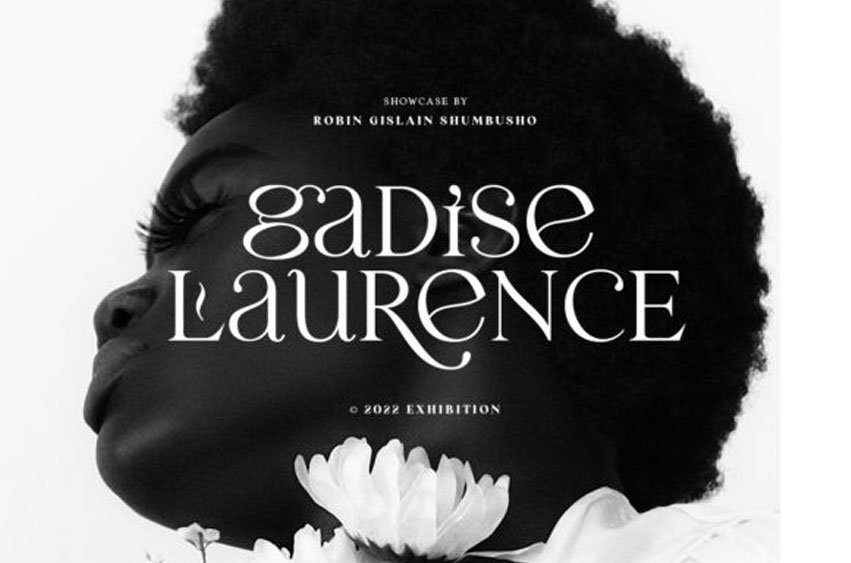
Laginchy Font
Laginchy Font is a genuine, bold, and classy serif font.
Fall in love with its incredibly versatile style and use it to create gorgeous wedding invitations, beautiful stationery art, eye-catching social media posts, and much more!